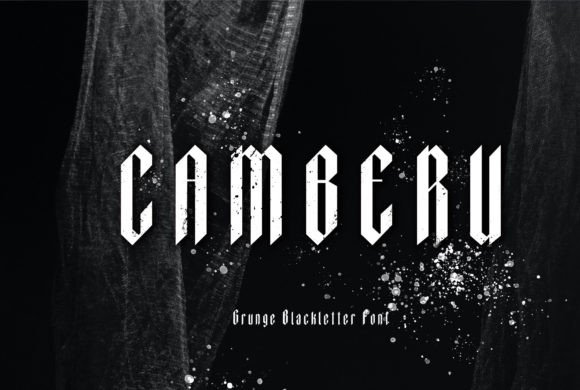
Introducing Camberu Font: The Ultimate Grunge Gothic Experience
In the realm of typography, fonts play a pivotal role in defining the aesthetic and tone of any design project. Among the myriad of fonts available, the Camberu Font stands out for its unique blend of gothic style and grunge effect, making it a versatile choice for creatives. This article delves into the features, applications, and benefits of using the Camberu Font in your design endeavors.
What is Camberu Font?
Camberu Font is a distinctive black letter font that combines the elegance of gothic typography with the ruggedness of a grunge effect. This fusion results in a visually striking font that can add depth and character to various design projects. Whether you’re working on posters, web design, branding, illustrations, badges, t-shirt designs, or any other creative work, Camberu Font offers a unique aesthetic that can elevate your designs.
Key Features of Camberu Font
- Uppercase Letters: The Camberu Font includes a comprehensive set of uppercase letters, ensuring that your designs have a strong and commanding presence.
- Numbers and Punctuation: Beyond uppercase letters, the font also features numbers and a wide variety of punctuation marks, providing flexibility and versatility in your typography.
- Gothic Style with Grunge Effect: The font’s gothic roots are evident in its elegant and intricate design, while the grunge effect adds a layer of ruggedness and texture, making it perfect for designs that require a bold statement.
Applications of Camberu Font
The versatility of Camberu Font makes it suitable for a wide range of applications. Here are some of the key areas where this font can make a significant impact:
- Posters: The bold and eye-catching nature of Camberu Font makes it ideal for posters, especially for events, concerts, or campaigns that require a strong visual impact.
- Web Design: For web designers looking to create a unique and memorable online presence, Camberu Font can be used for headings, titles, and even body text to give a website a distinctive look.
- Branding: Brands aiming to convey a sense of strength, elegance, and individuality can benefit from using Camberu Font in their logos, marketing materials, and packaging.
- Illustrations: Illustrators can use Camberu Font to add text to their artworks, creating a cohesive and impactful visual narrative.
- Badges and T-Shirt Designs: The font’s readability and aesthetic appeal make it perfect for designing badges, t-shirts, and other merchandise that require a bold and stylish text.
Benefits of Using Camberu Font
Choosing Camberu Font for your design projects comes with several benefits:
- Unique Aesthetic: The combination of gothic style and grunge effect offers a unique look that can differentiate your designs from others.
- Versatility: With its comprehensive set of characters and punctuation, Camberu Font can be used across various design projects.
- Emotional Impact: The font’s bold and rugged appearance can evoke strong emotions and reactions, making it ideal for designs intended to capture attention and leave a lasting impression.
How to Use Camberu Font Effectively
To maximize the impact of Camberu Font, consider the following tips:
- Pair with Complementary Fonts: When using Camberu Font alongside other fonts, choose ones that complement its gothic and grunge characteristics. Simple, clean fonts can create a striking contrast.
- Adjust Size and Color: Experiment with different sizes and colors to ensure that the text stands out without overpowering the rest of the design.
- Consider the Context: Ensure that the use of Camberu Font aligns with the message and tone of your project. Its bold nature makes it suitable for designs that require a strong presence.
Camberu Font is a powerful tool for designers seeking to add a touch of gothic elegance and grunge ruggedness to their projects. With its comprehensive set of uppercase letters, numbers, and punctuation, along with its versatile applications, this font can elevate a wide range of design endeavors. By understanding its features, applications, and how to use it effectively, designers can unlock the full potential of Camberu Font and create visually striking works that leave a lasting impression.
FAQs About Camberu Font
Q: Is Camberu Font suitable for body text?
A: While Camberu Font is bold and eye-catching, its readability for long body text may be limited. It’s best used for headings, titles, and short text snippets.
Q: How can I get the most out of Camberu Font?
A: Experiment with different sizes, colors, and pairings with other fonts to find the best fit for your design. Also, consider the context and tone of your project to ensure the font aligns with your message.